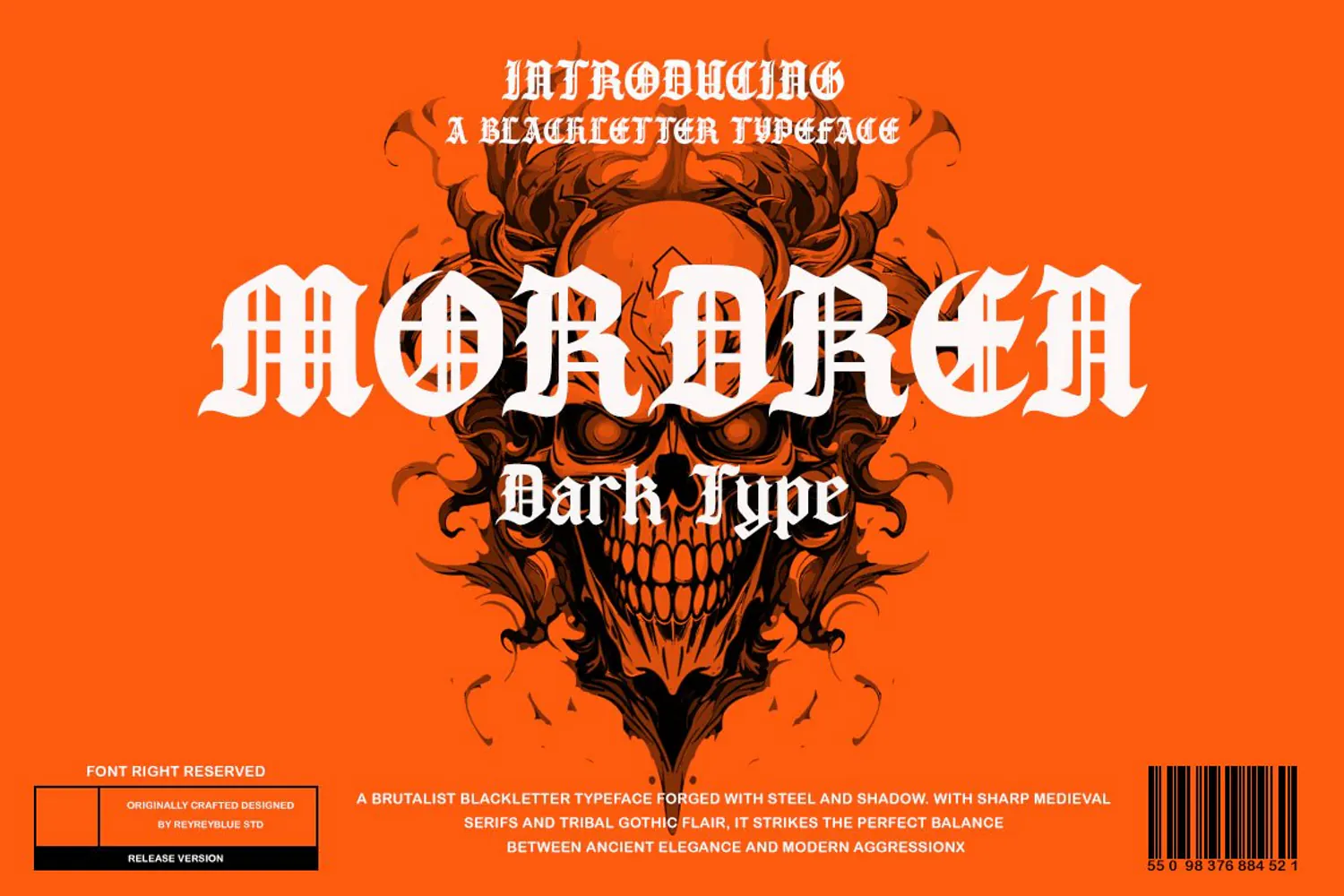
Introducing MORDREN — a brutalist Blackletter typeface forged with medieval character and modern aggression.
MORDREN is a bold and powerful Blackletter / Gothic display typeface inspired by traditional medieval lettering, tribal gothic forms, and dark ornamental aesthetics. Its sharp serifs, dramatic strokes, and distinctive angular details create a commanding visual presence with a raw and rebellious character.
Designed for bold, high-impact typography, MORDREN is perfect for heavy metal and rock branding, band logos, album covers, horror artwork, tattoo designs, streetwear, posters, gaming graphics, merchandise, Gothic branding, and alternative designs.
MORDREN combines the timeless character of medieval Blackletter typography with a contemporary brutalist edge, making it ideal for designers looking to create designs that feel dark, powerful, aggressive, and unmistakable.
MORDREN — where medieval elegance meets modern aggression.